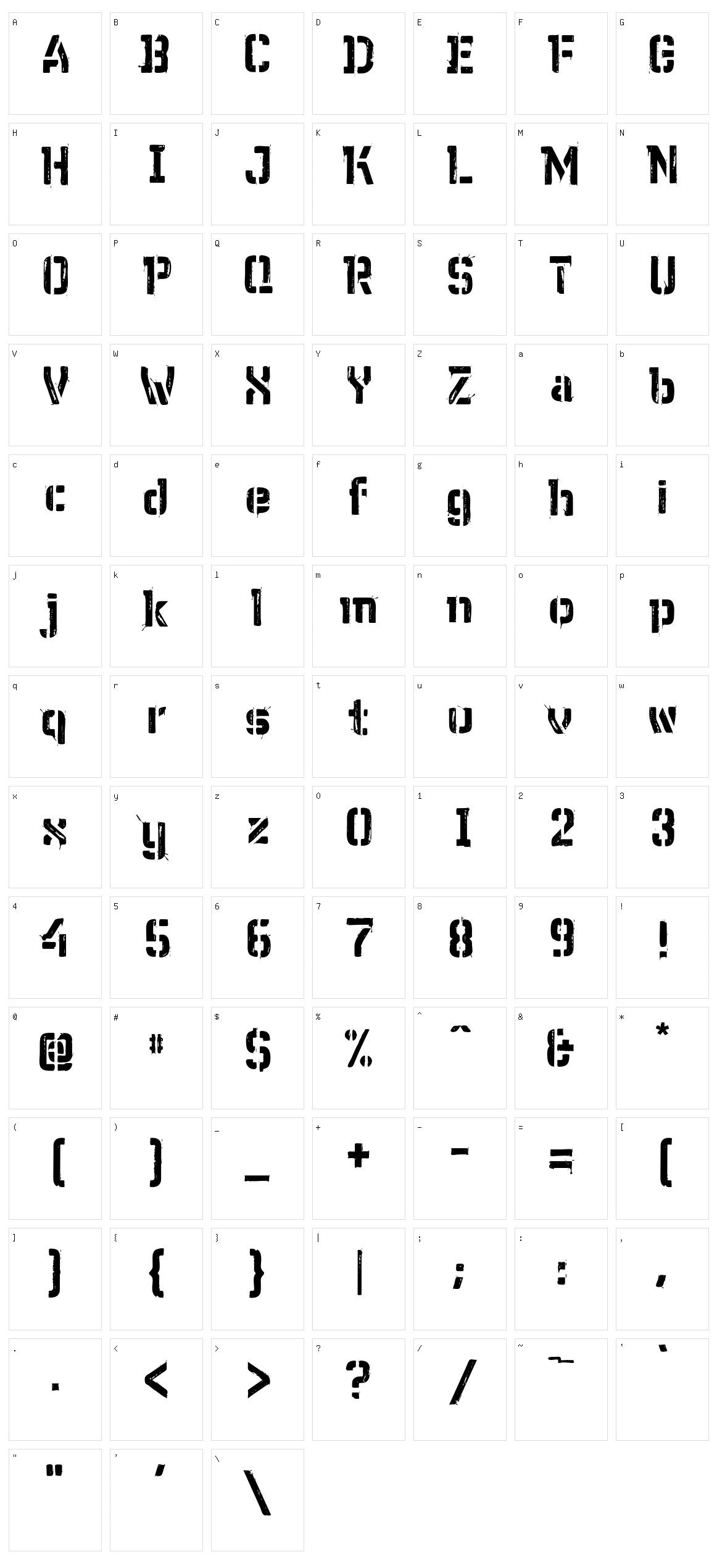
The free font WC Wunderbach Paint Bta is carefully designed by WC Fonts / Atypeek, showcasing a thoughtful balance of creativity and usability and falls under the Stencil font style. When you download the ZIP file, it contains only 182.28 KB of font files, making it lightweight and quick to download. Please review the license details below to understand permitted usage and distribution rights. If license information is not available, we recommend using this font for personal projects only or contacting the author directly for commercial usage permissions.